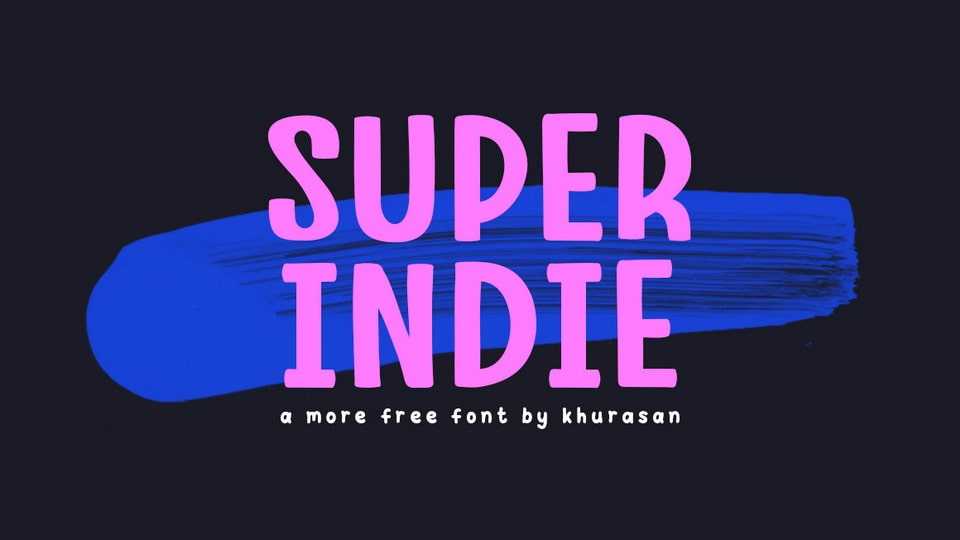
Download Super Indie font, an authentic, hand drawn brush typeface made with real marker pens. With its organic and natural look, Super Indie font is ready to make a big impression.